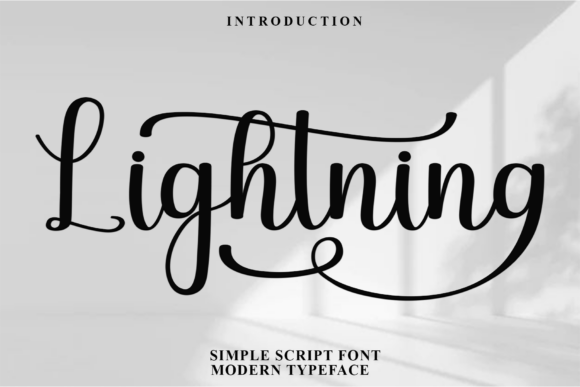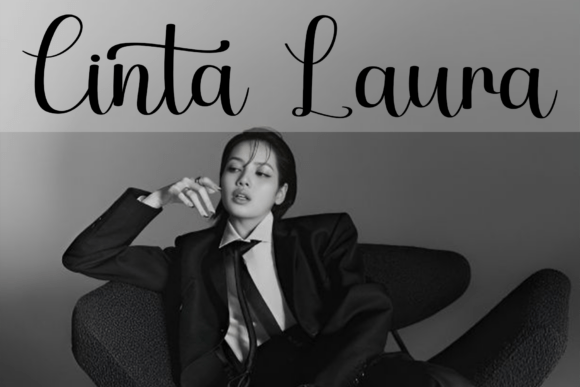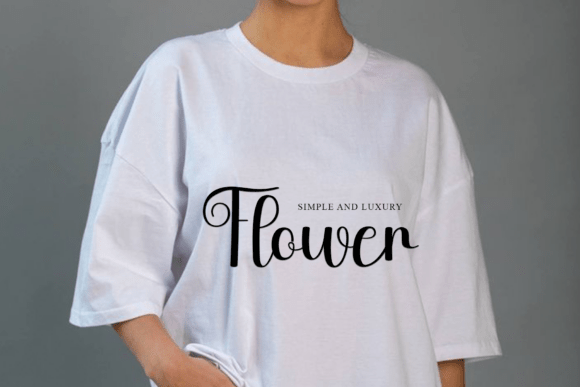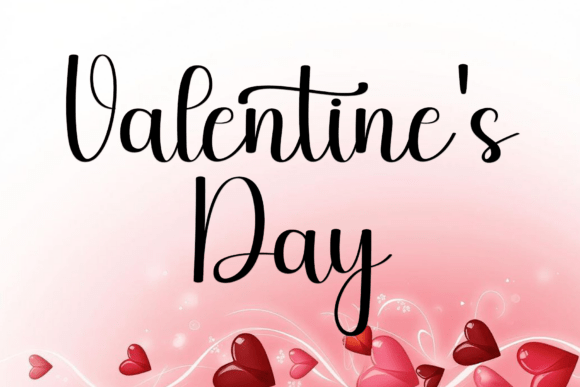
Lightning Font
About the Lightning Font
Presenting Lightning Font, a unique and stylish typeface that will make your work stand out. Lightning is a casual and creative font that exudes warmth and friendliness. Its round, playful strokes create a relaxed and approachable feel, perfect for personal projects, invitations, and social media graphics. The font’s charming, hand-drawn aesthetic adds a fun and unique touch to any design.
Lightning Font excels in headlines, short-form text, and branding applications where a friendly, approachable aesthetic is desired. It works particularly well for invitations, social media posts, and packaging for products targeting a younger demographic or those emphasizing a casual, handcrafted feel. Avoid using it for body copy or lengthy paragraphs; its playful nature can hinder readability in extended text blocks.
Pairing Lightning with a clean sans-serif like Montserrat or Open Sans creates a balanced contrast, grounding the playful energy of Lightning. For a more sophisticated look, consider pairing it with a delicate serif font such as Playfair Display, though this should be done judiciously to avoid visual conflict. Using it with a script font could work well in invitations or logo design, but always ensure the script remains legible to maintain readability.
Its core personality is undeniably playful and friendly, conveying warmth and approachability. This makes it unsuitable for projects requiring sophistication or seriousness, but ideal for brands targeting a youthful audience or promoting a lighthearted message.
Lightning Font Usage Examples
Lightning Font Example